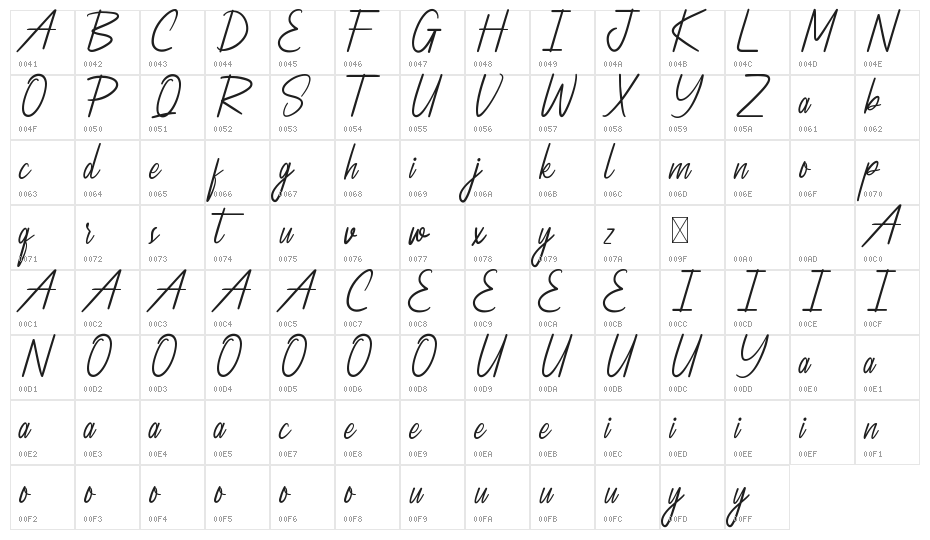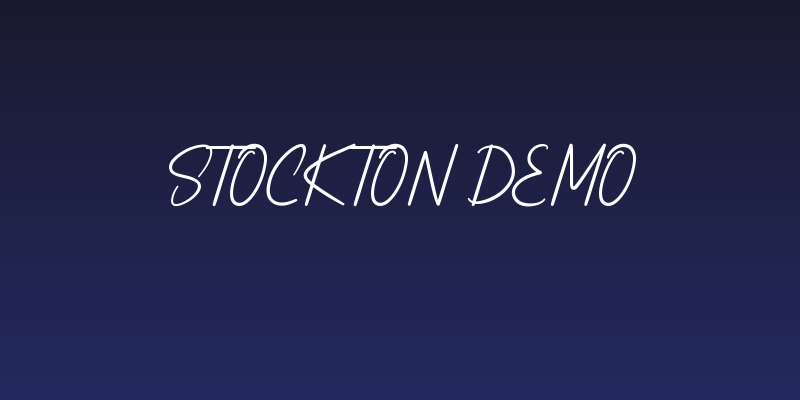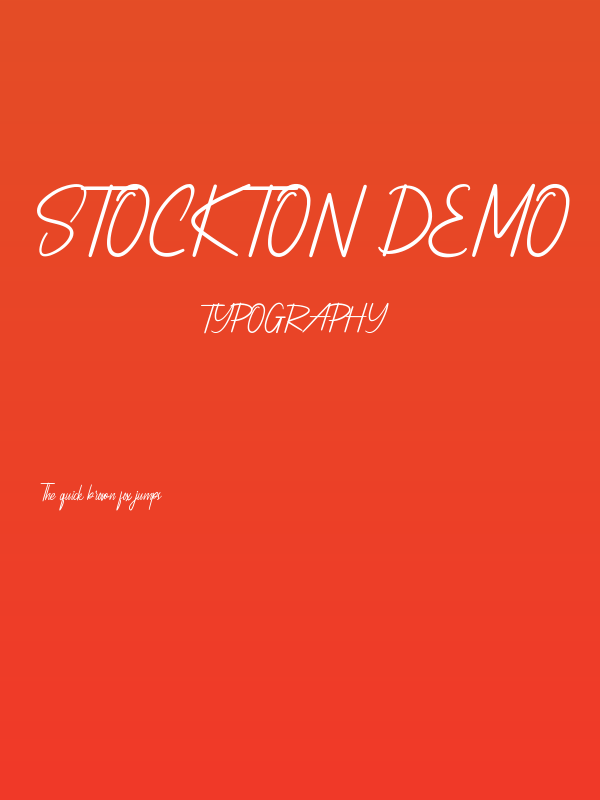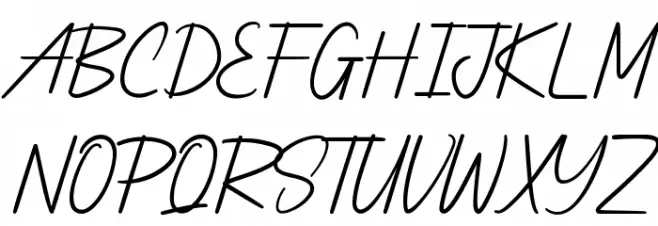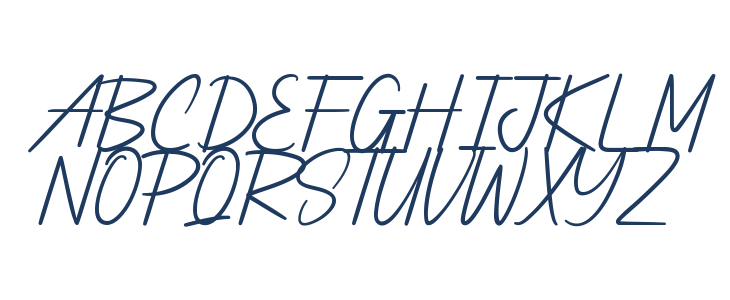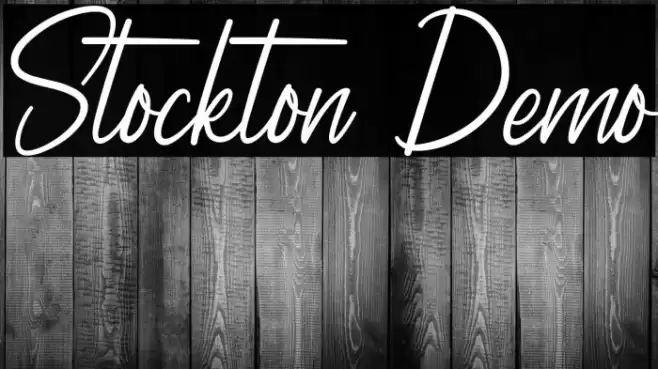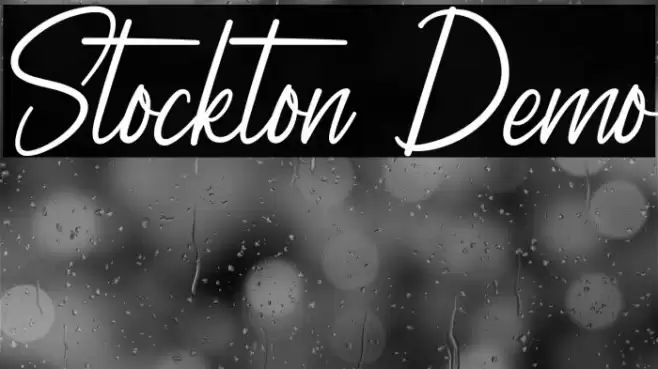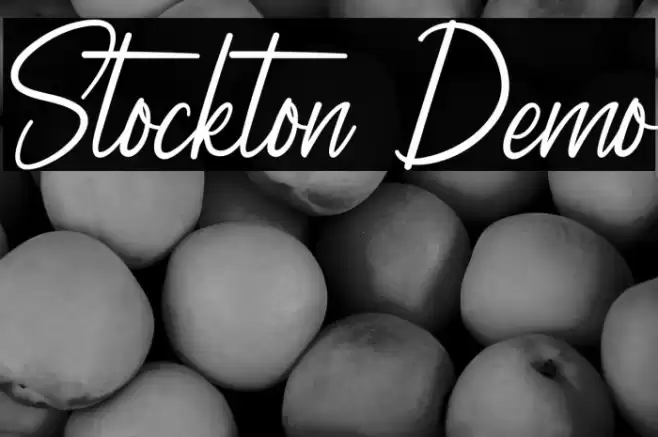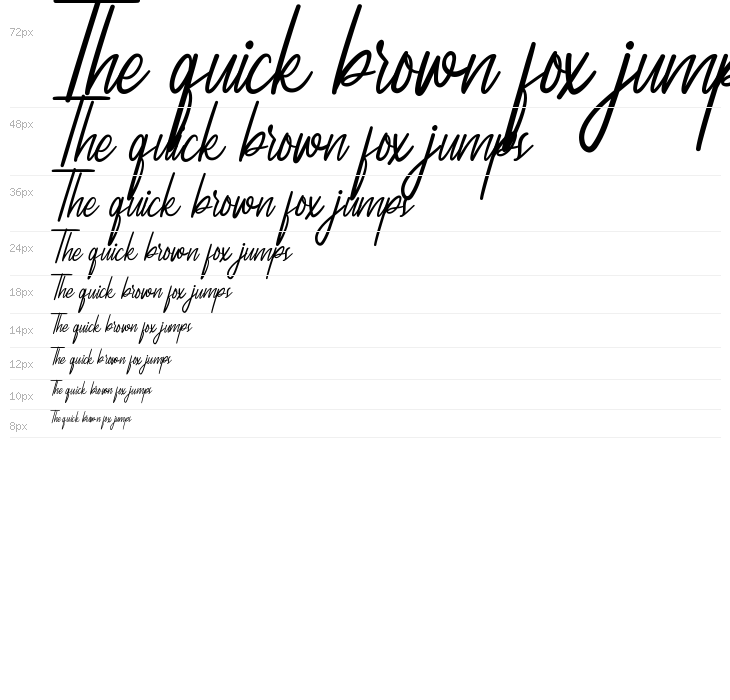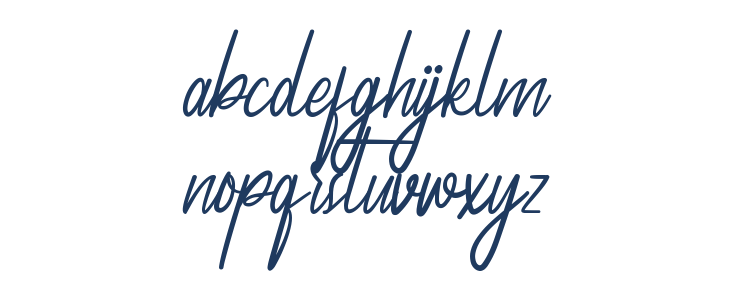
Stockton Demo Font
Stockton Demo Description
A handwritten, cursive script font with a casual and flowing style, characterized by smooth, connected strokes and a slightly slanted appearance.
| Overall Style | Casual, Elegant, Personal |
| Use Case | Headlines, Personal branding, Invitations, Greeting cards |